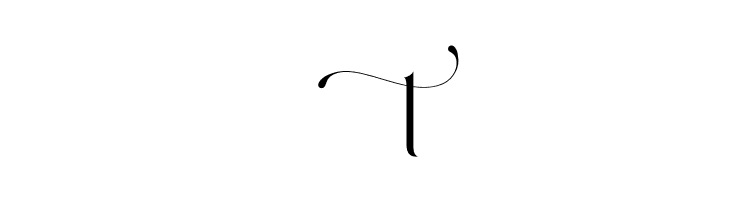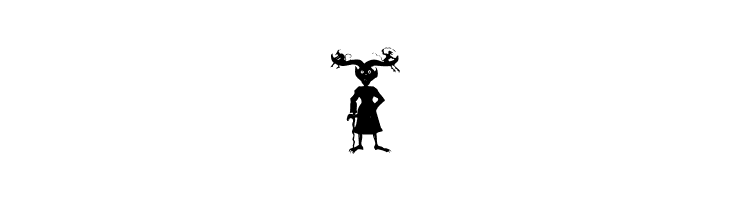
An elegant, high-contrast serif font with decorative swashes and refined curves.
A dynamic, brush-style script font with bold, expressive strokes.
A bold, three-dimensional font with intricate detailing and a vintage flair.
A decorative and whimsical font with intricate, artistic uppercase letters.
A playful, hand-drawn font with bold, rounded letters and a whimsical style.
A bold, modern font with a geometric and condensed style.
A bold, geometric font with a futuristic and industrial design.